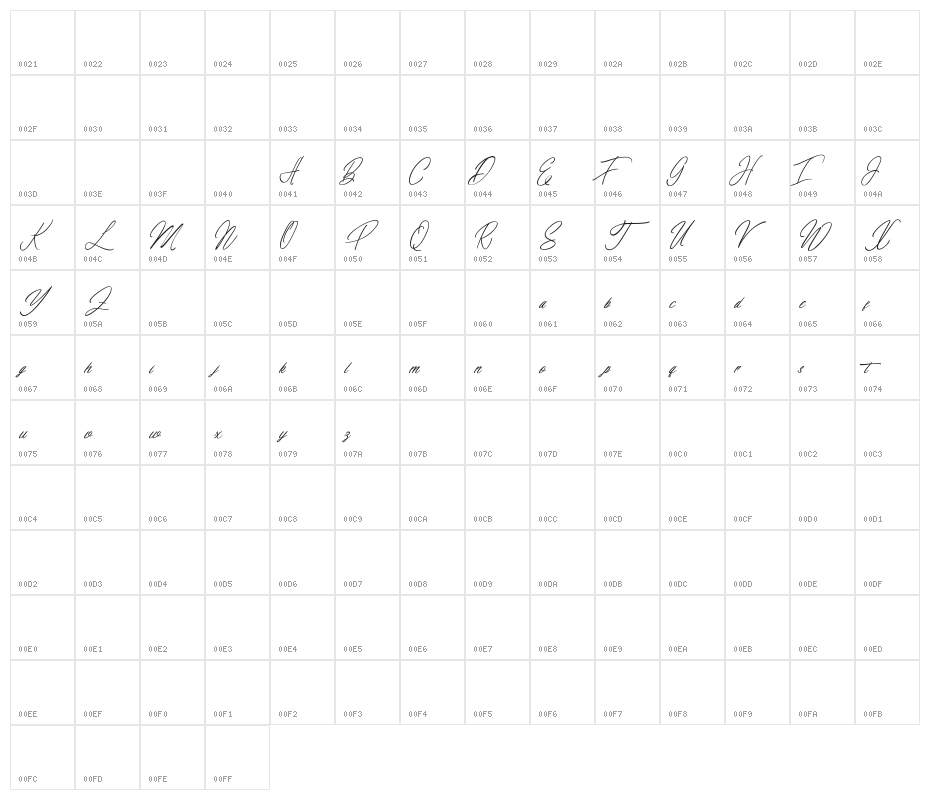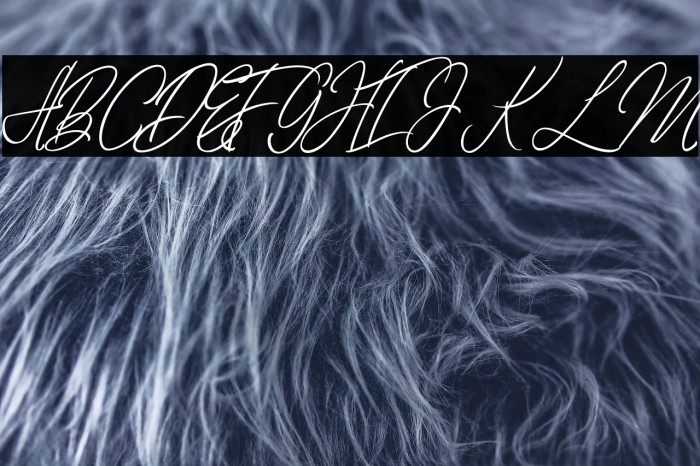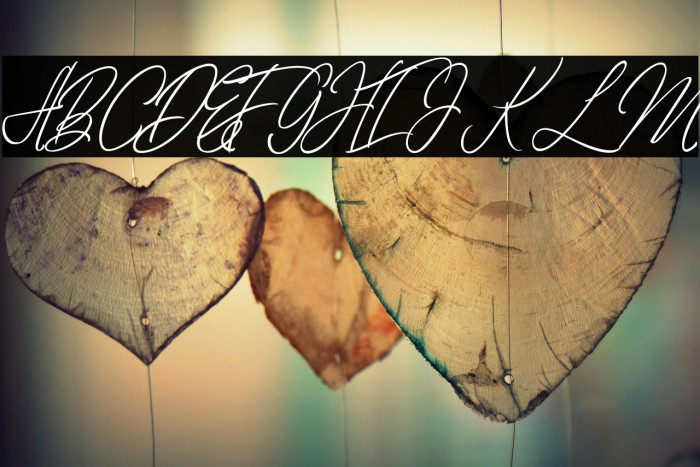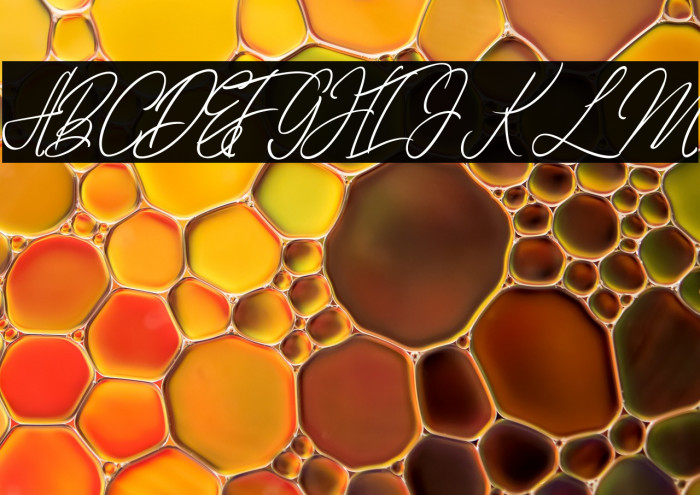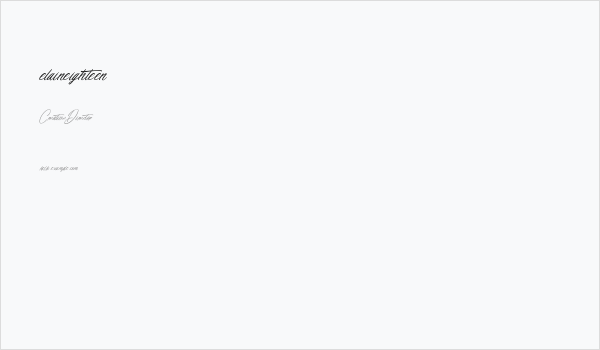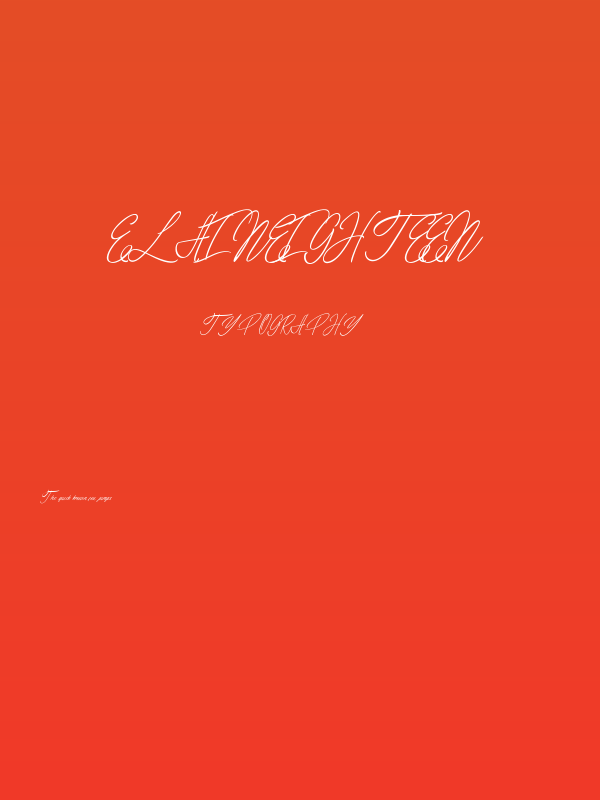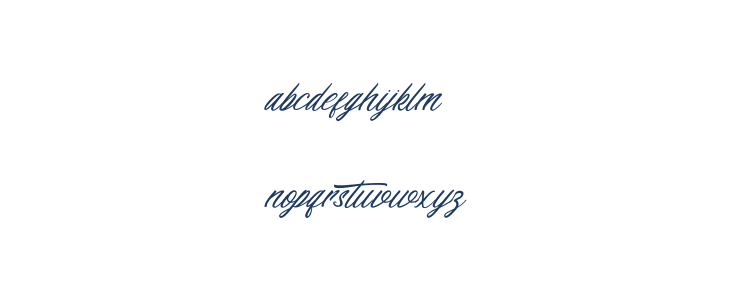
elaineighteen Font
elaineighteen Description
This elegant script font features flowing, interconnected letters that mimic the fluidity of cursive handwriting. The uppercase letters are ornate and elaborate, with sweeping loops and flourishes that give a sense of sophistication and grace. The lowercase letters maintain a consistent style, with smooth curves and a slightly slanted orientation, enhancing the handwritten feel. This font is designed to convey elegance and refinement, making it ideal for formal invitations, branding, and decorative purposes. The overall appearance is both classic and stylish, with a touch of modern flair.
| Overall Style | Elegant, Classic |
| Use Case | Invitations, Branding, Decorative |
| Proposed Projects | Ideal for wedding invitations, luxury branding, greeting cards, and decorative signage. |